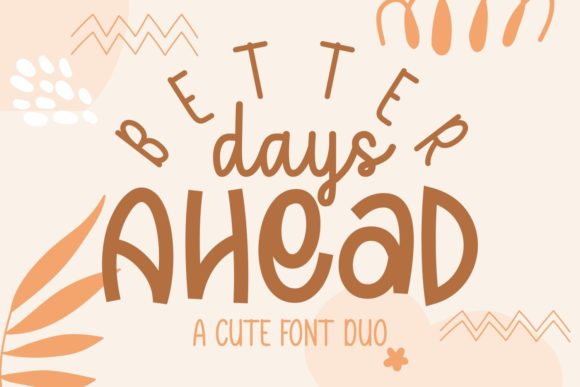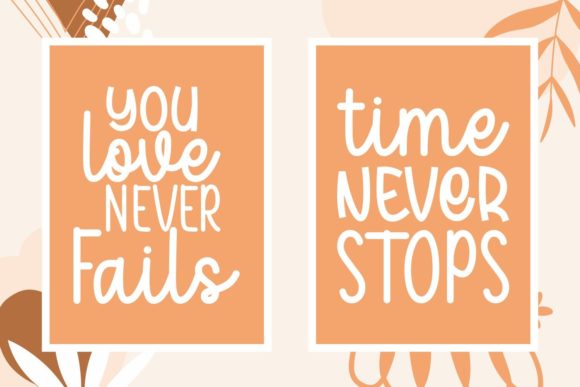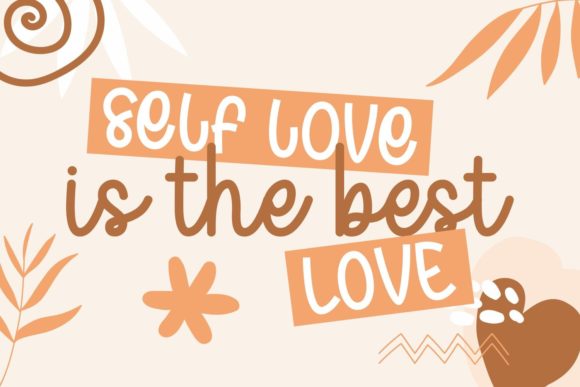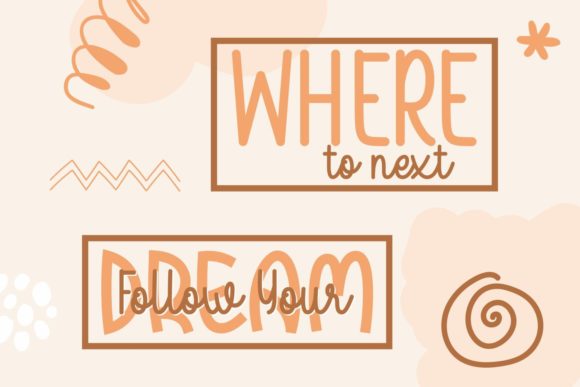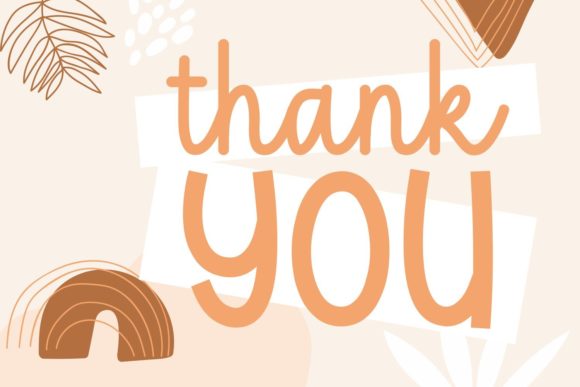
Better Days Ahead Font
About Better Days Ahead Font
Better Days Ahead is a cute and jolly duo styled handwritten font. It has a modern yet whimsical style and it will undoubtedly immerse your designs into a magical world.